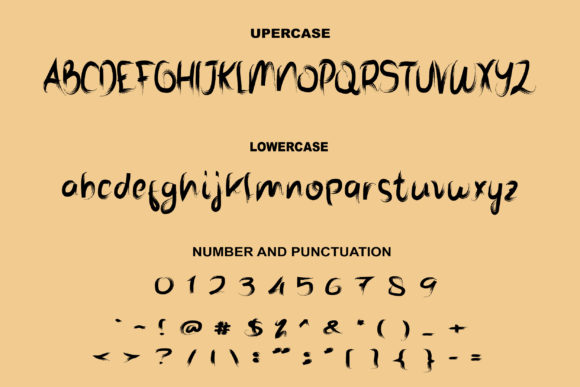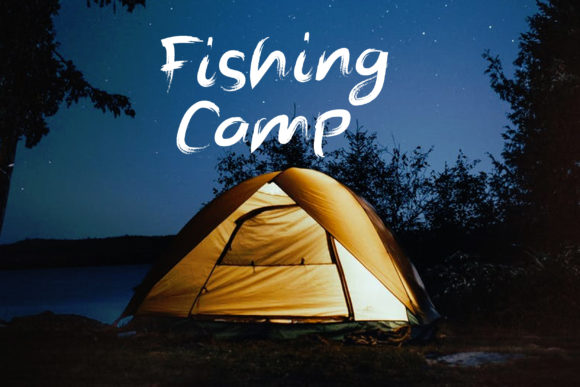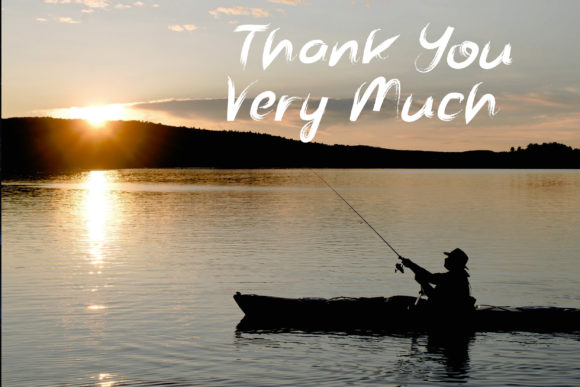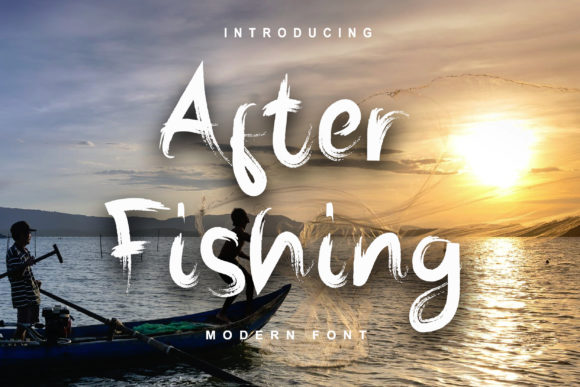
The Ultimate Font for Creative Projects: A Deep Dive into After Fishing
I’ll never forget the time I was working on a project for a client who wanted a modern, edgy look, but I was struggling to find the perfect font. I had tried countless options, but nothing seemed quite right. That’s when I stumbled upon After Fishing, a chic and brushed display font that completely transformed my design. In this article, I’ll share my experience with After Fishing, its features, and how to make the most of it in your creative projects.
An Honest Review of After Fishing
After Fishing is a versatile font that can elevate any creation, regardless of the topic. Here’s what I love about it:
- ✨ Unique and stylish design that adds a touch of sophistication to any project
- ✅ Extensive character set, including OpenType features and glyphs
- ✅ Works well for both digital and print projects
While After Fishing is an excellent font, it’s not without its quirks. Here are a few things to keep in mind:
- ⚠️ Some users may find the font a bit too condensed for certain applications
- 🤔 Limited availability of certain special characters
The Story Behind After Fishing
After Fishing was designed with the modern creative in mind. The font’s designer wanted to create a unique and stylish font that would add a touch of sophistication to any project. Inspired by the world of fashion and design, After Fishing is a font that’s both chic and versatile.
| Font Name | After Fishing Font |
| Author | ABBAsalam |
| What type of projects is After Fishing best suited for? | After Fishing is a versatile font that can be used for a wide range of projects, including digital and print designs, fashion and beauty branding, and more. |